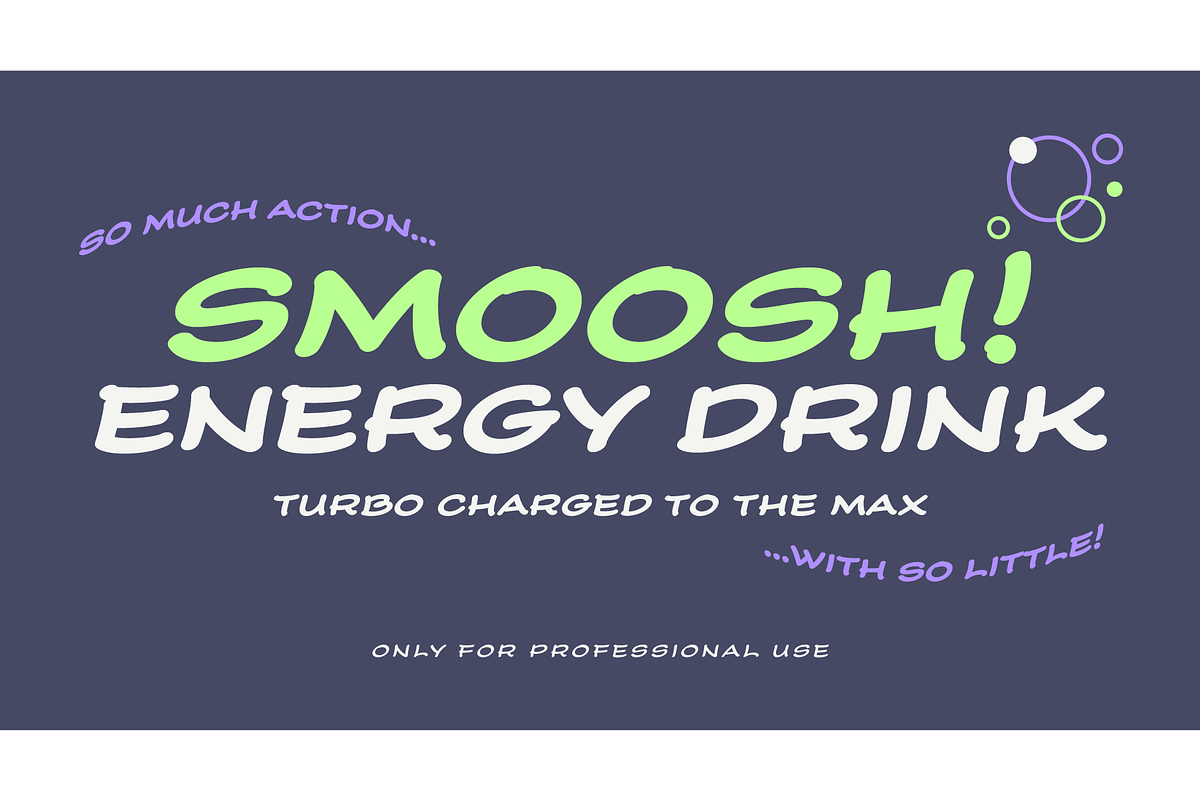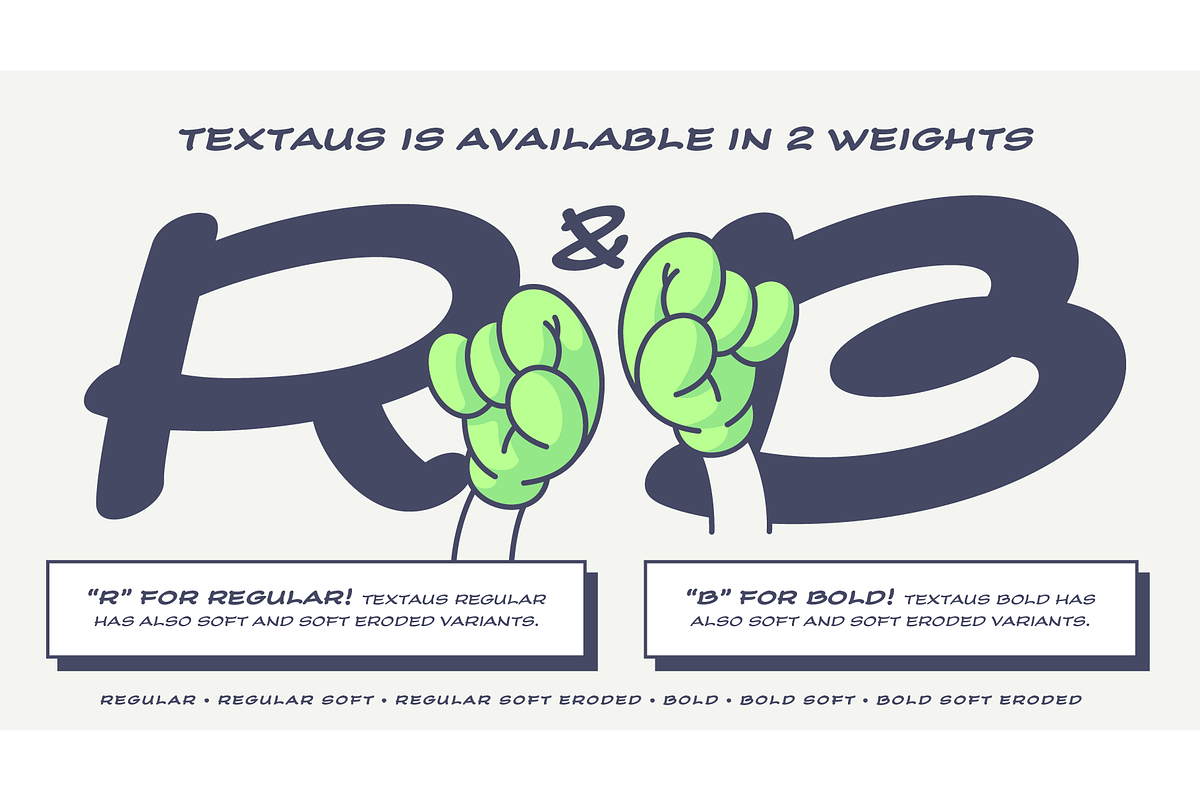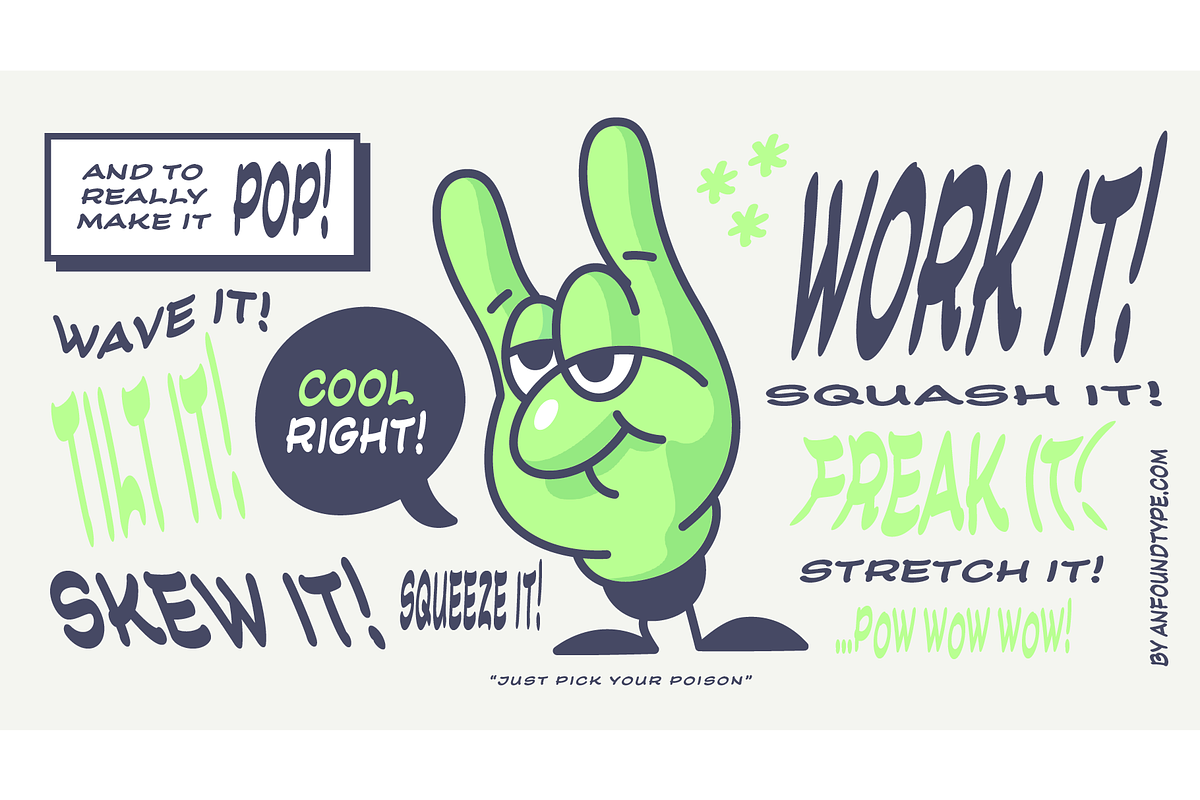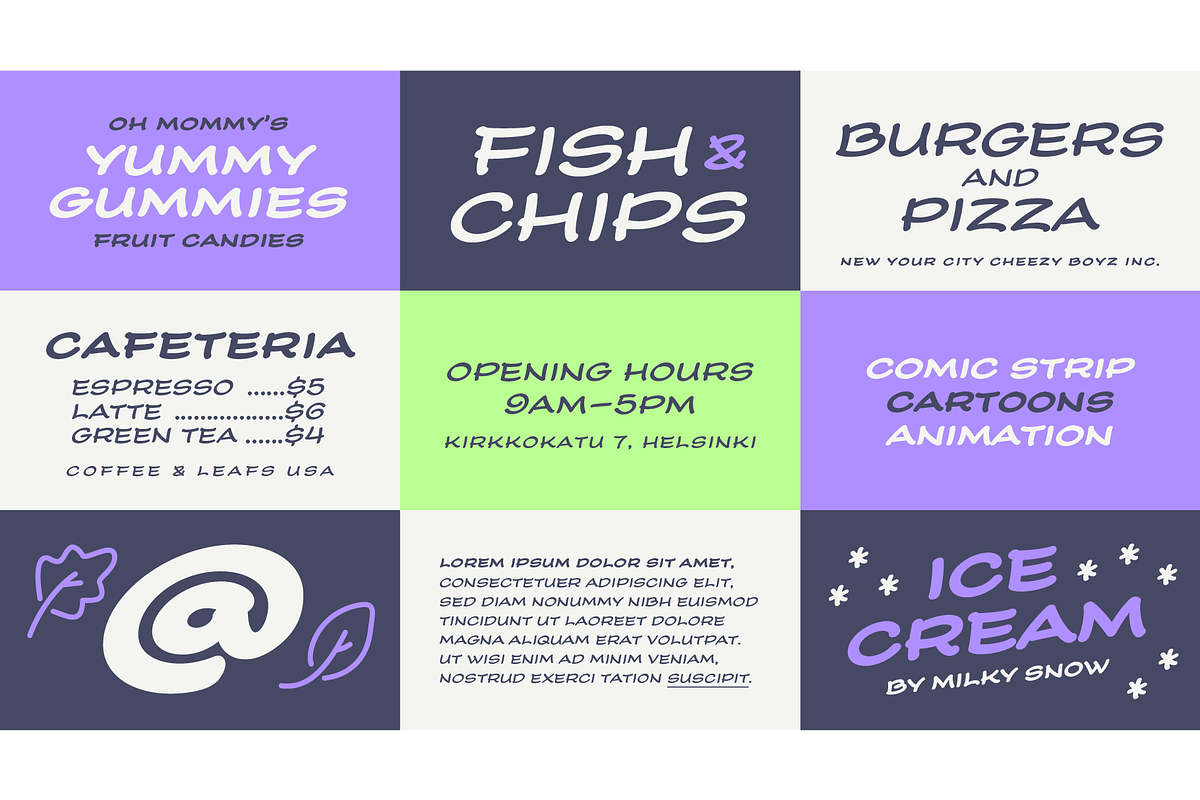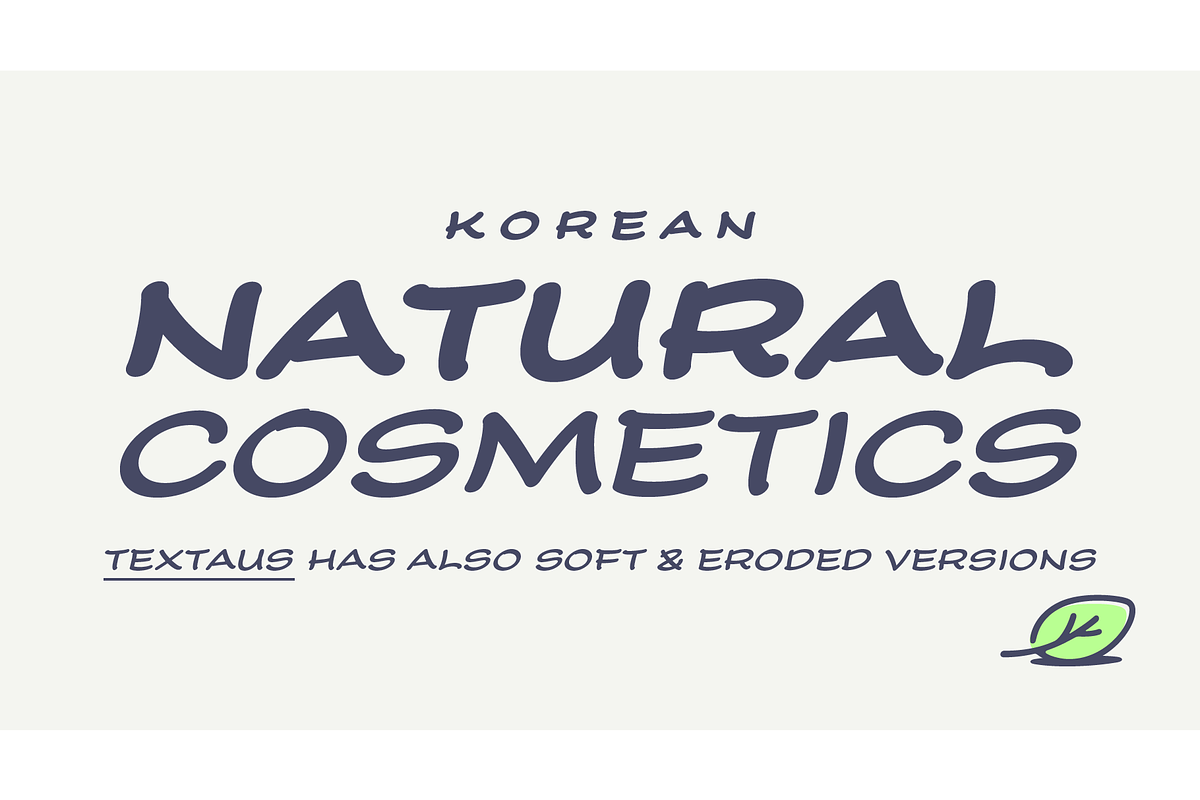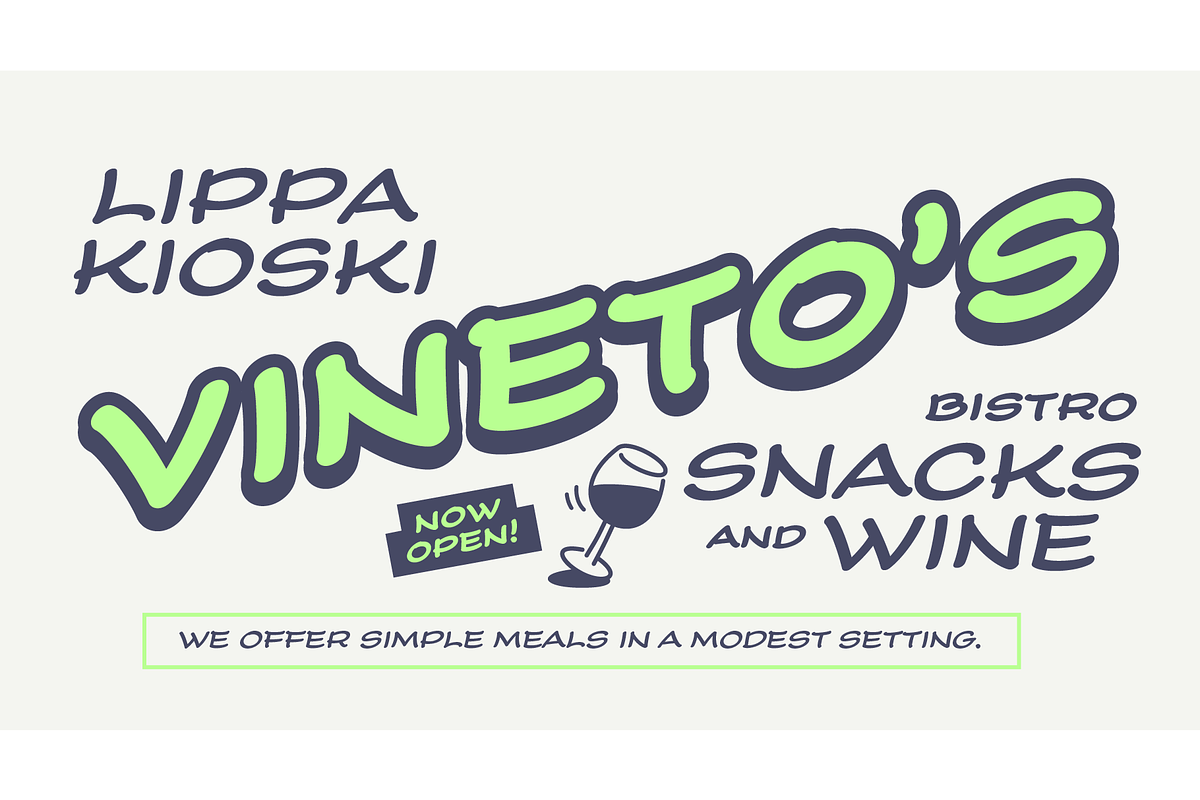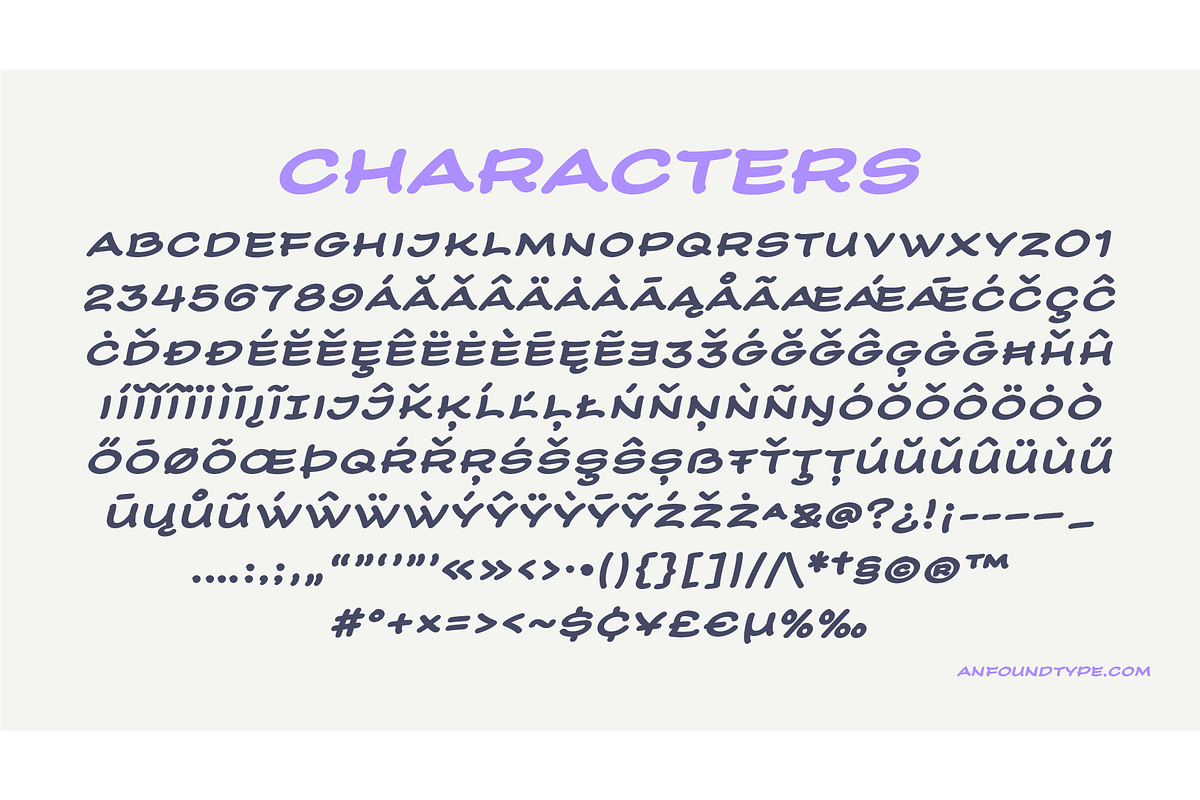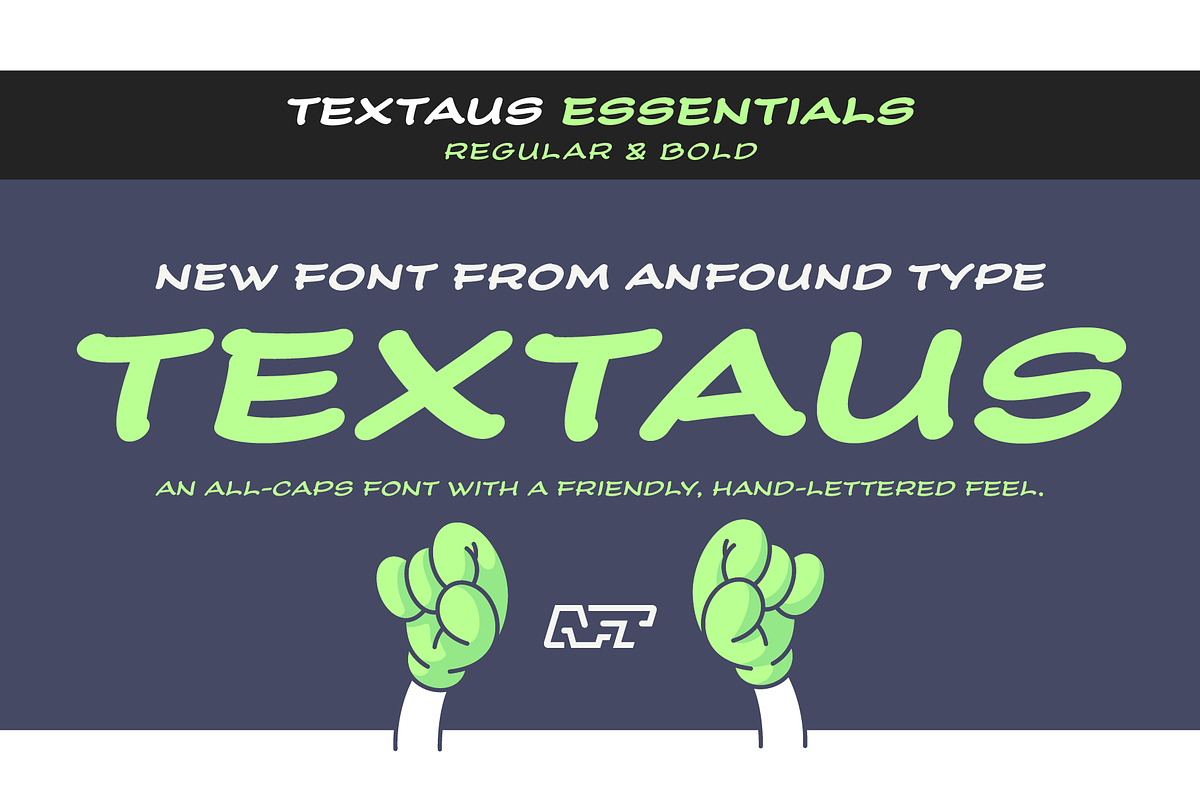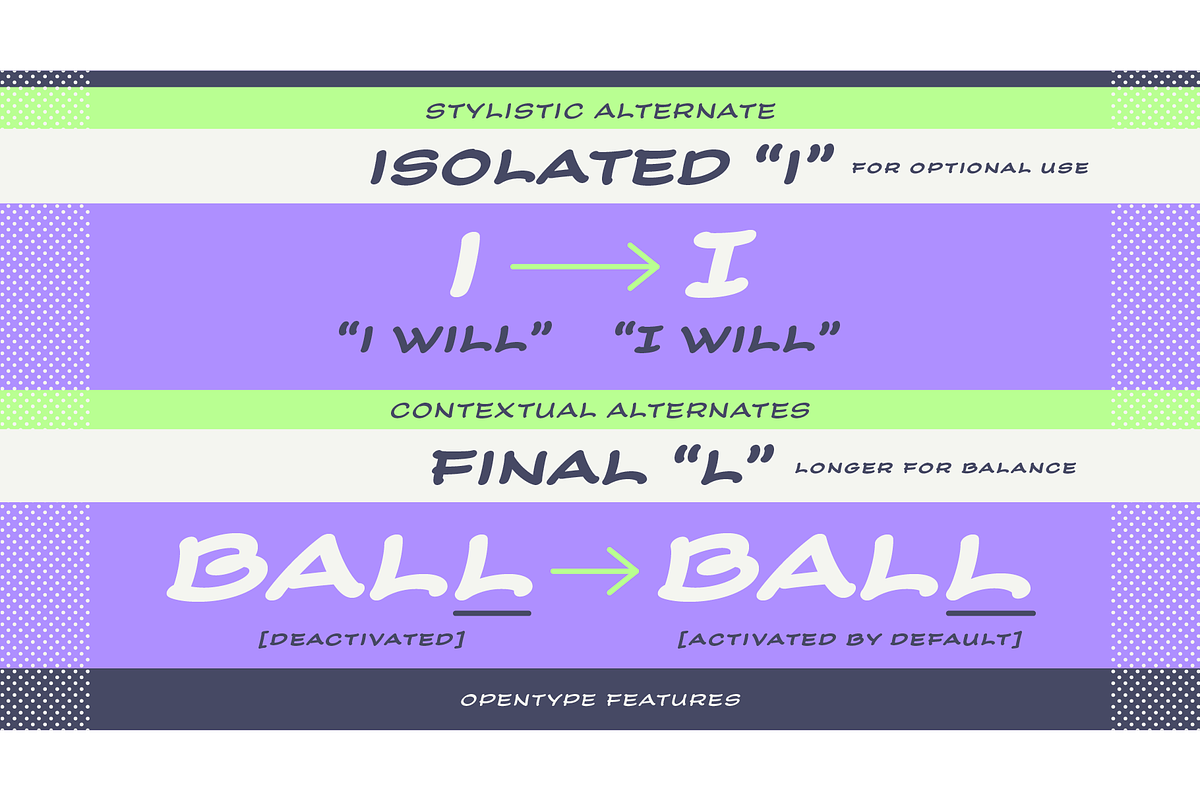
Textaus - Essentials
Anfound Type's new font, Textaus, is an all-caps font with a friendly, hand-lettered feel. It comes in two weights: Regular and Bold.
It includes a stylistic alternative for the letter 'I,' perfect for comic book designs and other creative uses. Additionally, Textaus features contextual alternates for the final 'L,' which is automatically activated. This version of 'L' is slightly elongated for visual balance, while a tighter version within words ensures better spacing and optimized negative space.
Textaus is quietly simple, yet surprisingly flexible.